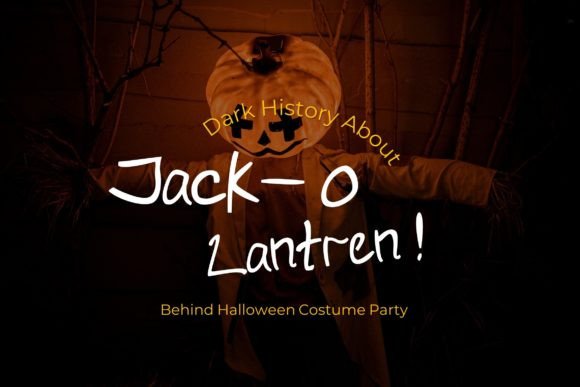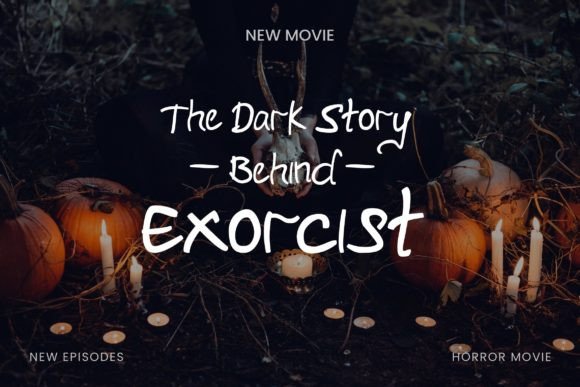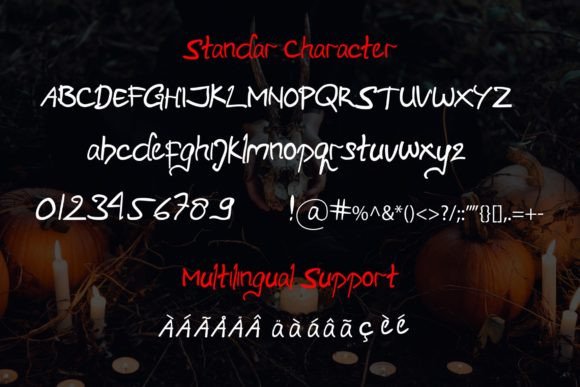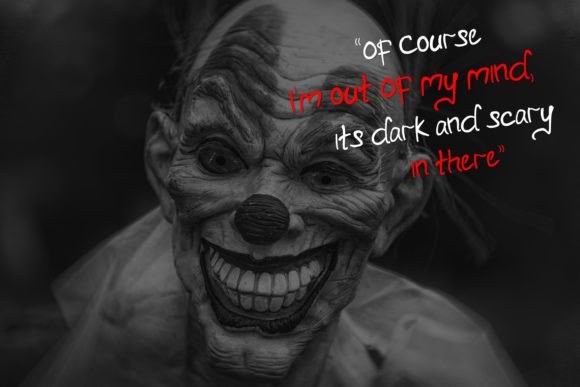
Introduction to Hollow Spooky Font
Hollow Spooky Font is a scary handwritten font, it’s perfect for many different projects such as Halloween, horror, Spooky, Scary, nightmare, haunted, ghost, gothic, mystical, dark, blood, creepy, hideous, horrific, damnable or thriller themed font can be used for Creative Projects such Game Horror, T-Shirts, poster, movie or crafts with extra spook, fright and feels.